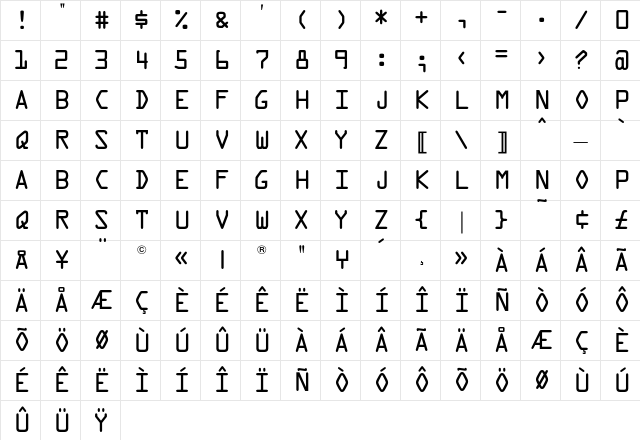
OPTIOpus Regular
Design Context for OPTIOpus
OPTIOpus is a composed and adaptable typeface that performs quietly and consistently across a wide range of design contexts.